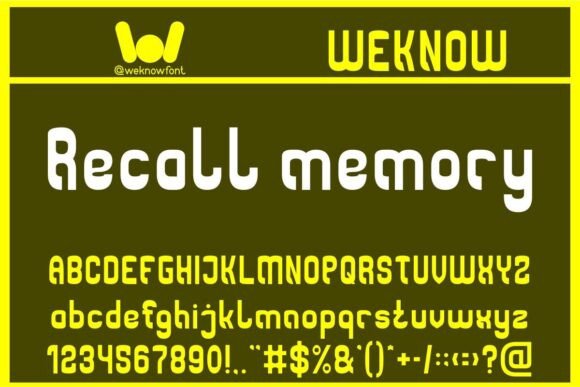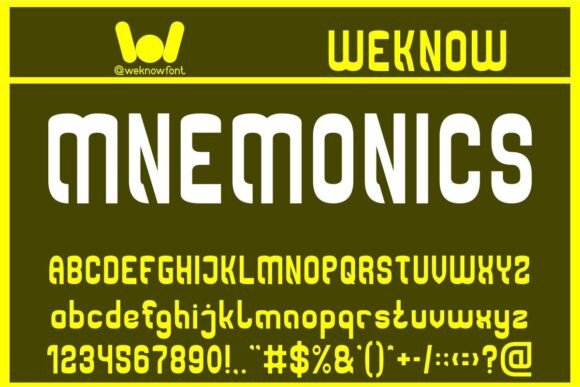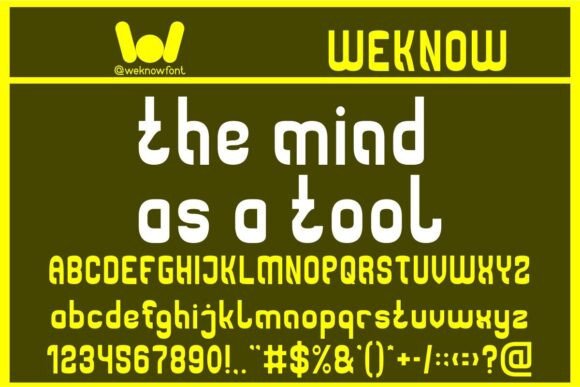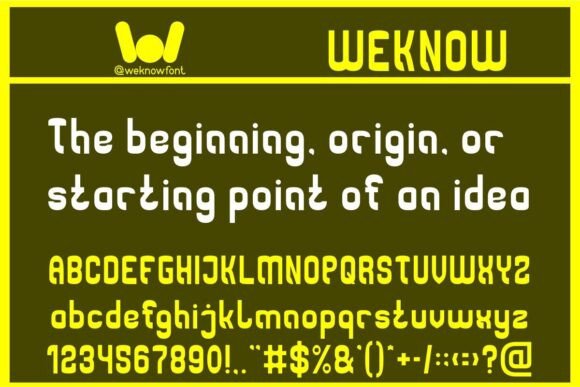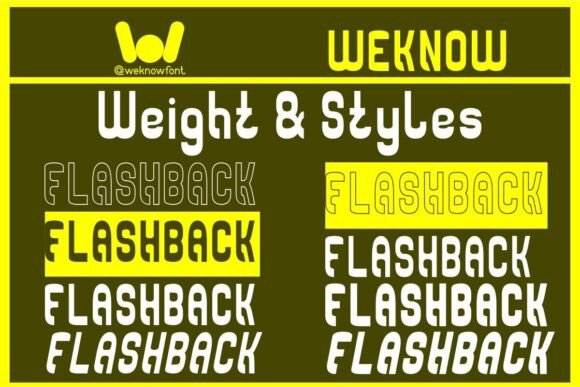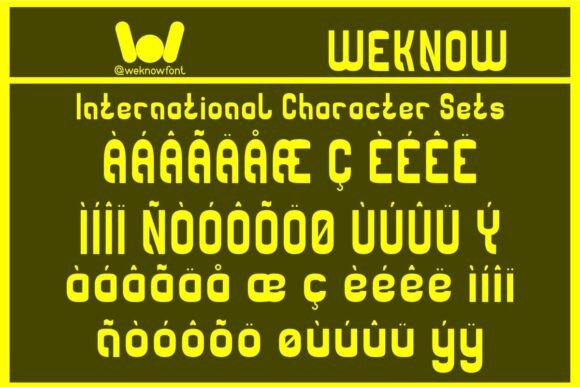
Introducing Flashback Font: The Ultimate Display Font for Bold Statements
Are you tired of using the same old fonts for your designs? Look no further than Flashback Font, a diverse and vivacious display font that’s sure to make a bold statement. With its whimsical twist, Flashback is the perfect choice for designers and crafters who want to add a touch of fun and personality to their projects.
A Font that’s Fanciful yet Basic, Playful yet Refined
Flashback Font is a unique and eclectic choice that’s both fanciful and basic, playful yet refined. Its dynamic style is perfect for a wide range of applications, from logo designs and corporate branding to apparel, music, movie, game, and magazine graphics. Whether you’re looking to create a bold and eye-catching headline or a stylish and sophisticated logotype, Flashback is the perfect font for the job.
Perfect for Logo Designs and Corporate Branding
Flashback Font is an ideal choice for logo designs, thanks to its bold and attention-grabbing style. Its unique and eclectic design makes it perfect for corporate branding, allowing businesses to stand out from the crowd and establish a strong visual identity. With Flashback, you can create a logotype that elevates your brand and sets you apart from the competition.
Electrify Your Headlines with Flashback
Flashback Font is also perfect for dressing up headlines and adding a touch of excitement to your designs. Its dynamic style is sure to grab attention and draw in your audience, making it perfect for music, movie, game, and magazine graphics. Whether you’re creating a bold and eye-catching headline or a stylish and sophisticated title sequence, Flashback is the perfect font for the job.
Transport Your Audience to a World of Imagination
Flashback Font is also ideal for comics, cartoons, and other imaginative projects. Its playful and whimsical style is perfect for transporting your audience to a world of fantasy and adventure. With Flashback, you can create a visually stunning and engaging design that’s sure to delight your audience and leave a lasting impression.
Maximize Your Digital Presence with Flashback
In today’s digital age, having a strong online presence is more important than ever. Flashback Font is the perfect choice for maximizing your digital presence, with its bold and attention-grabbing style that’s sure to stand out on social media platforms like YouTube, Instagram, and website designs. Whether you’re creating a bold and eye-catching title sequence or a stylish and sophisticated website design, Flashback is the perfect font for the job.
The Quintessential Pick for Unforgettable Book Designs
Flashback Font is also the quintessential pick for creating unforgettable book designs. Its dynamic style and bold and attention-grabbing design make it perfect for book covers, title pages, and other design elements. With Flashback, you can create a visually stunning and engaging design that’s sure to grab the attention of readers and leave a lasting impression.
Power Your Creativity with Flashback
Flashback Font is more than just a font – it’s a design solution that’s ready to power your creativity and set your design apart. With its unique and eclectic style, Flashback is the perfect choice for designers and crafters who want to add a touch of fun and personality to their projects. Whether you’re creating a bold and eye-catching logo design or a stylish and sophisticated book design, Flashback is the perfect font for the job.
Key Features of Flashback Font
- Diverse and vivacious display font
- Whimsical twist with a fanciful yet basic, playful yet refined style
- Eclectic and unique choice for logo designs, corporate branding, and more
- Perfect for music, movie, game, and magazine graphics
- Ideal for comics, cartoons, and other imaginative projects
- Maximizes digital presence on social media platforms and website designs
- Quintessential pick for unforgettable book designs
Get Ready to Make a Bold Statement with Flashback Font
With its dynamic style and bold and attention-grabbing design, Flashback Font is the perfect choice for designers and crafters who want to make a bold statement. Whether you’re creating a logo design, corporate branding, or a stylish and sophisticated book design, Flashback is the perfect font for the job. So why wait? Get ready to power your creativity and set your design apart with Flashback Font.